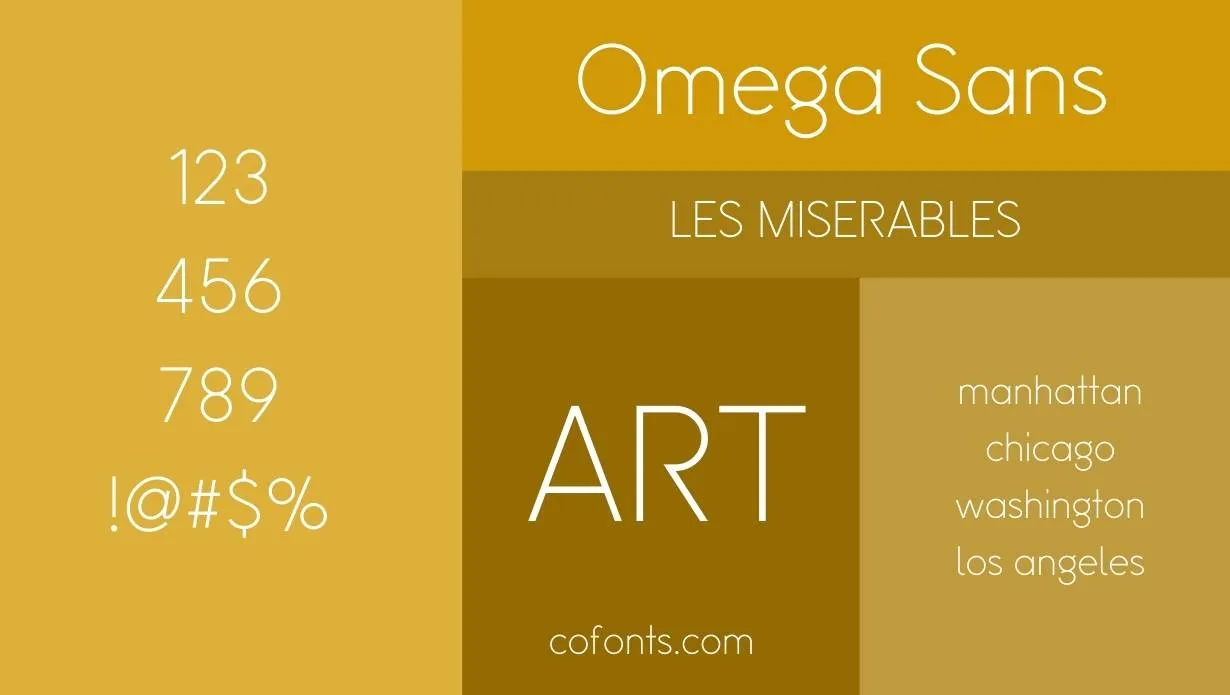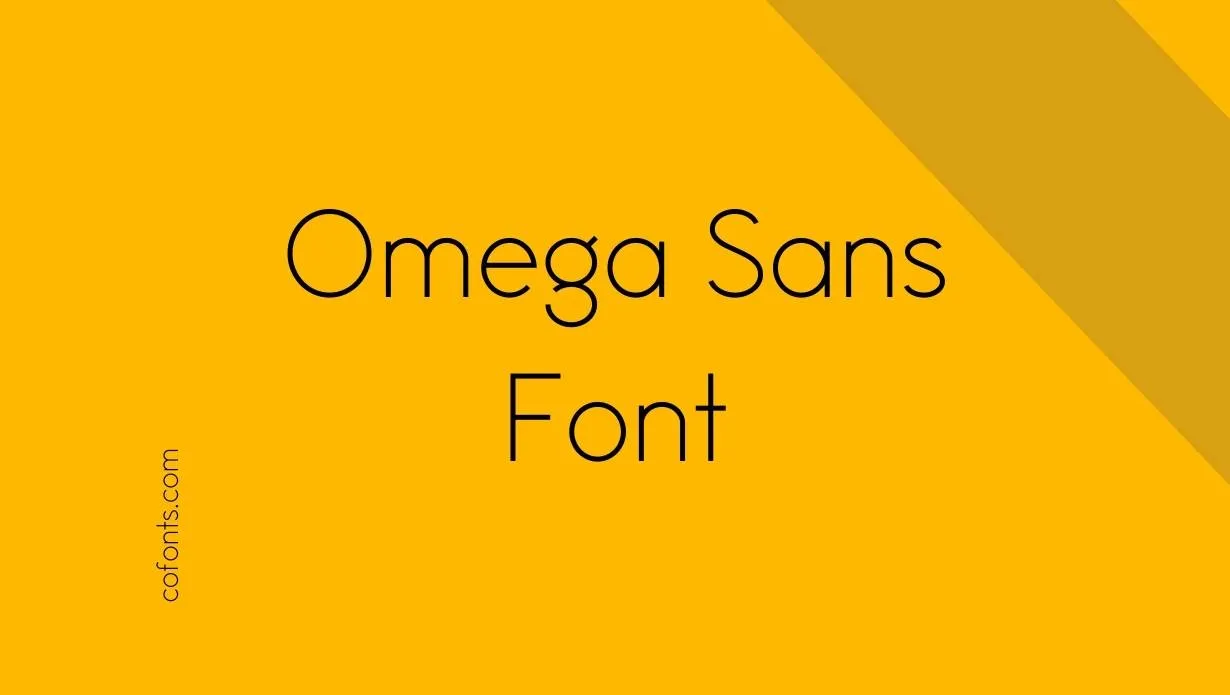
About Omega Sans Font Free Download
Omega Sans Font Free Download is a modern typeface available in multiple variants and styles.
- Omega Sans Font Regular
- Omega Sans Font Bold
- Omega Sans Font Italic